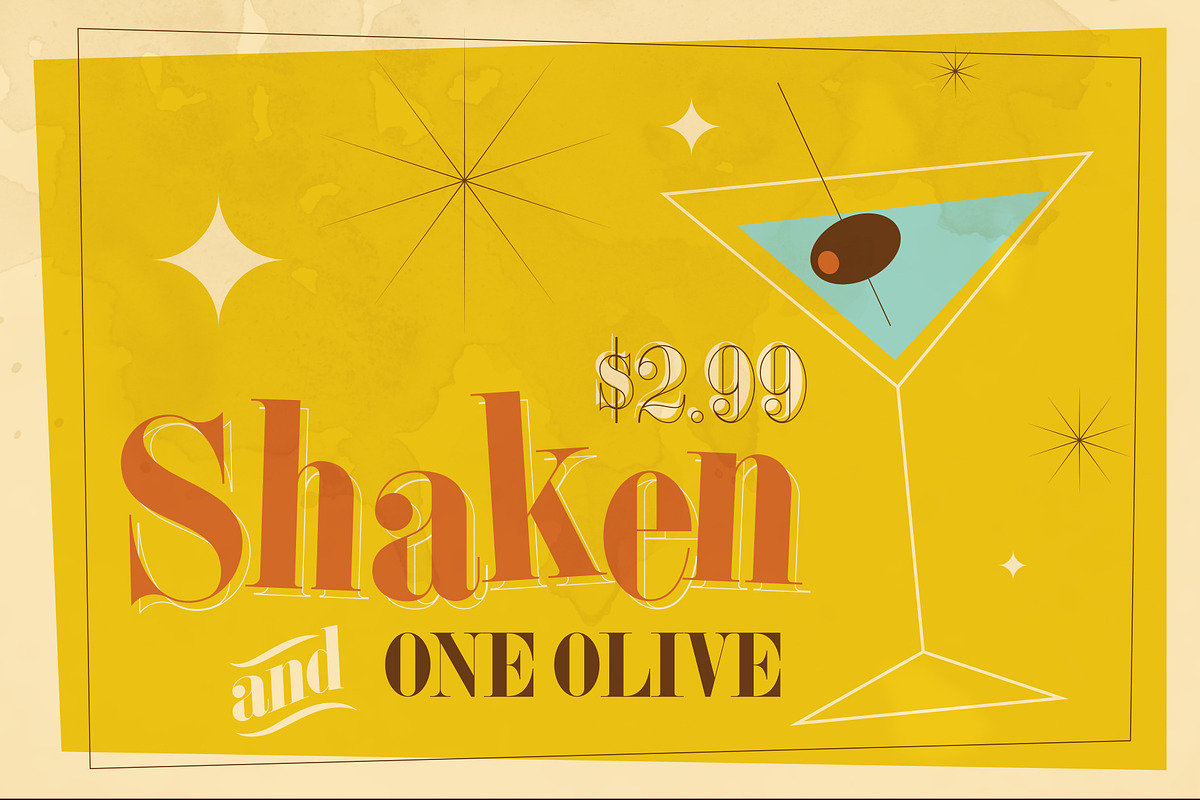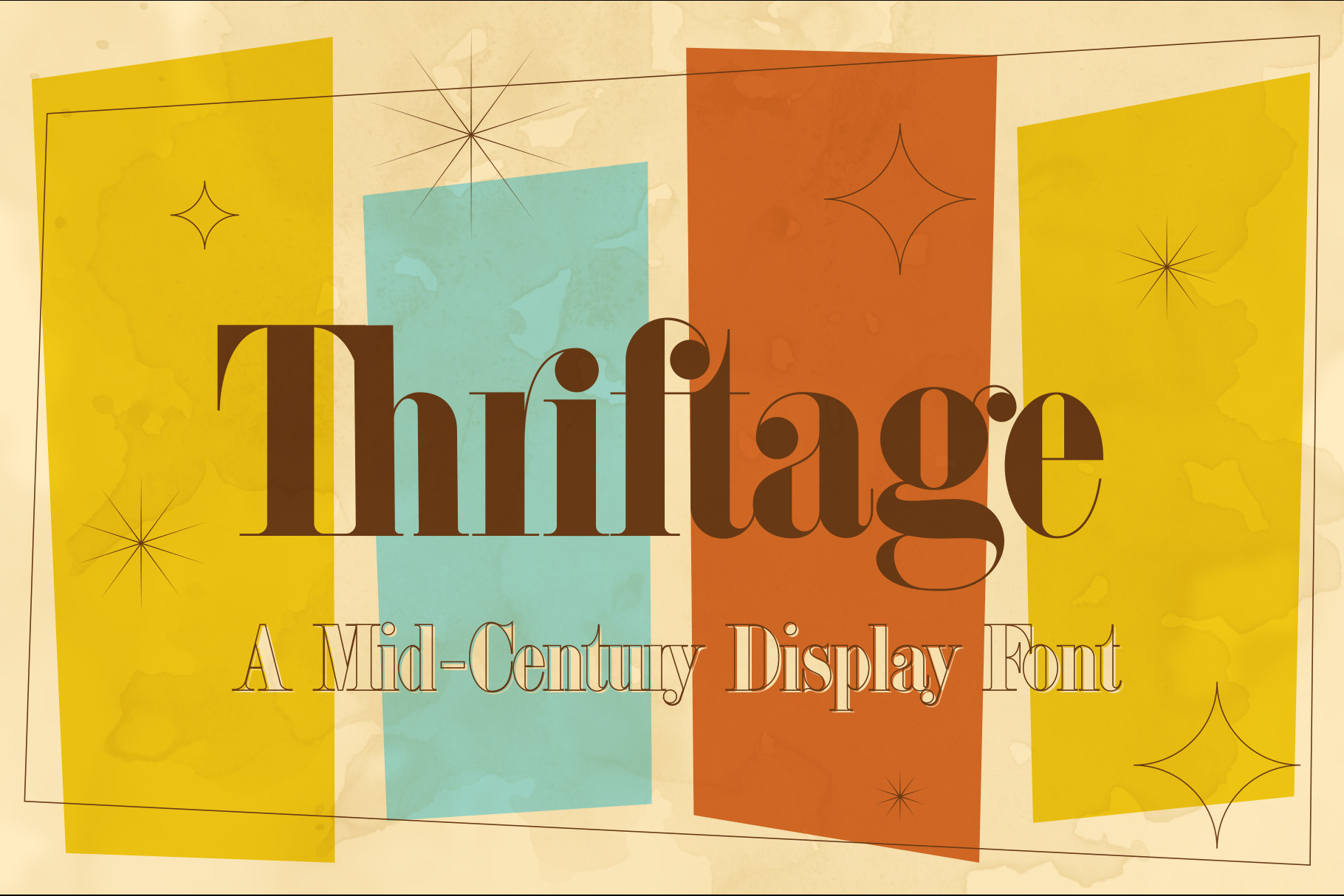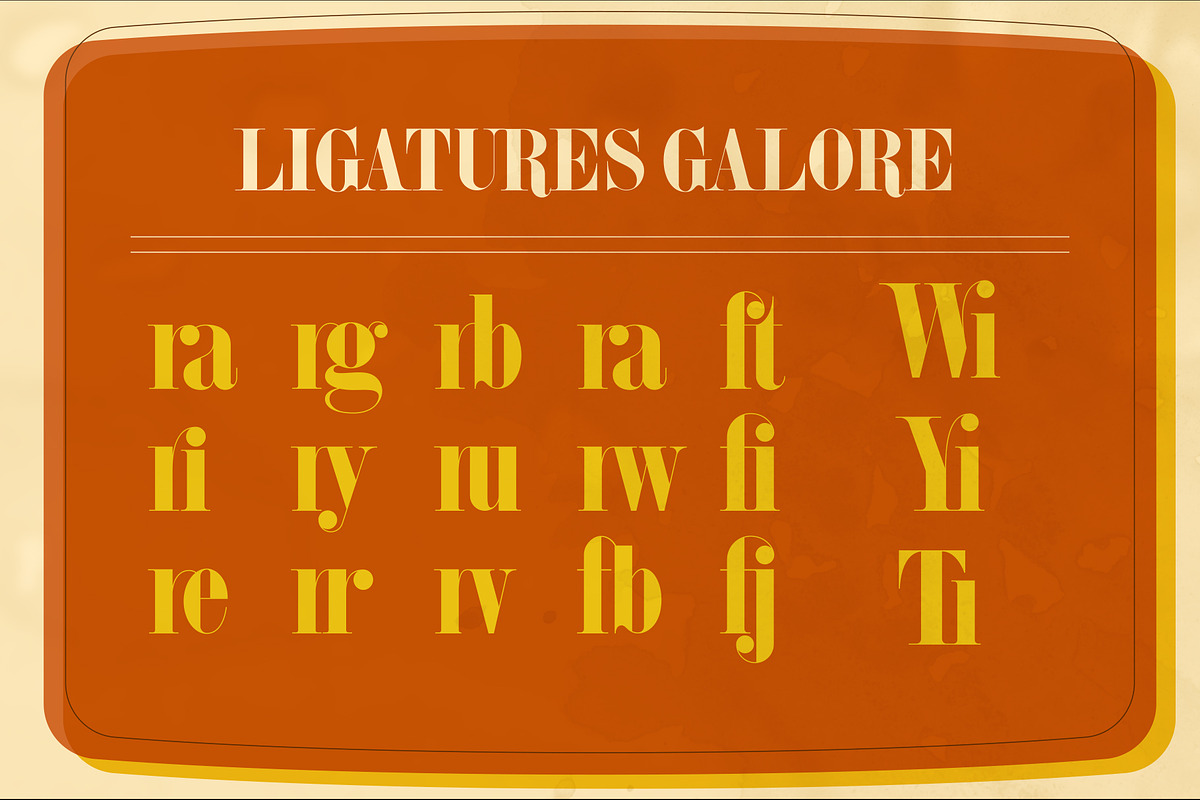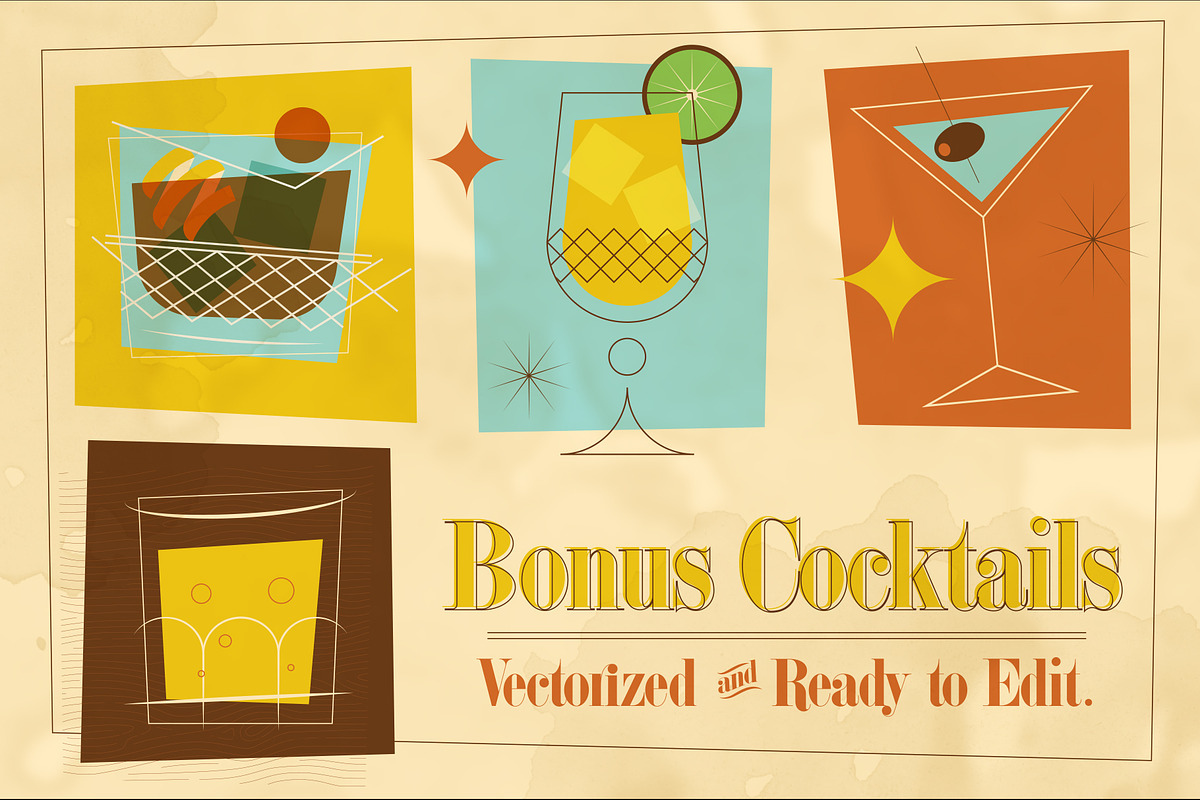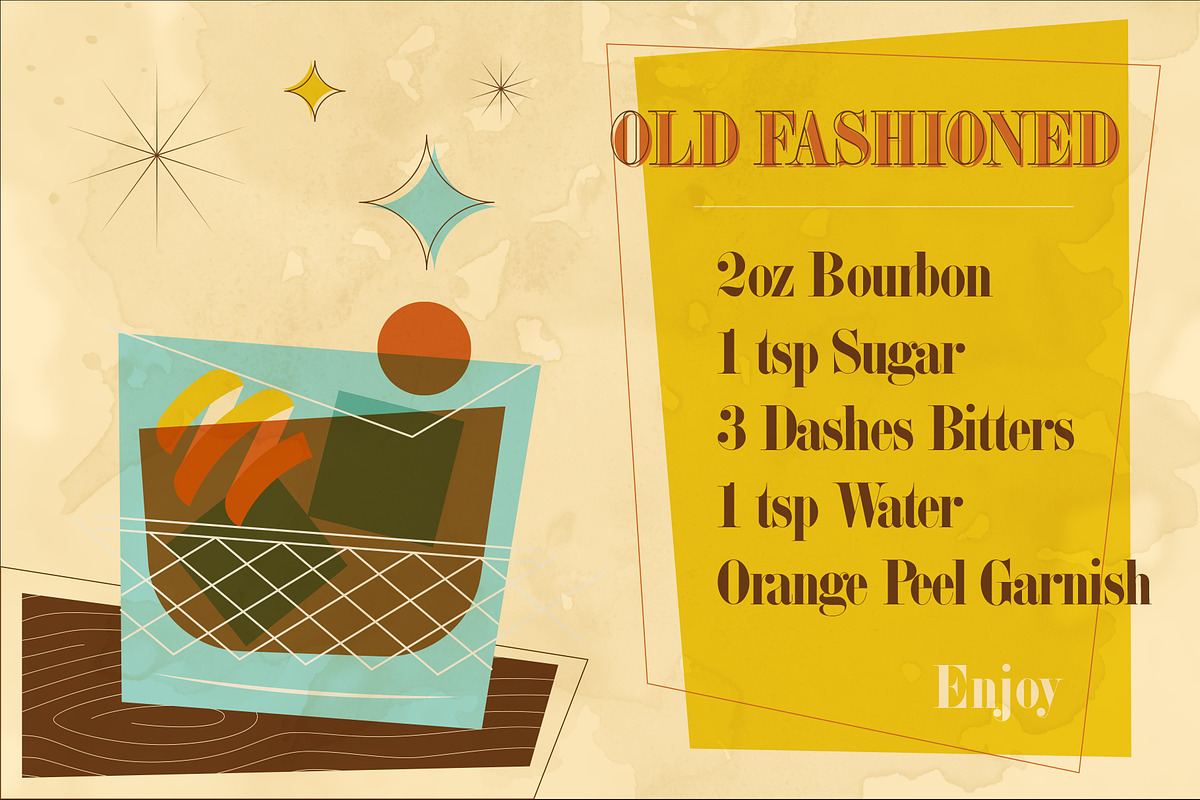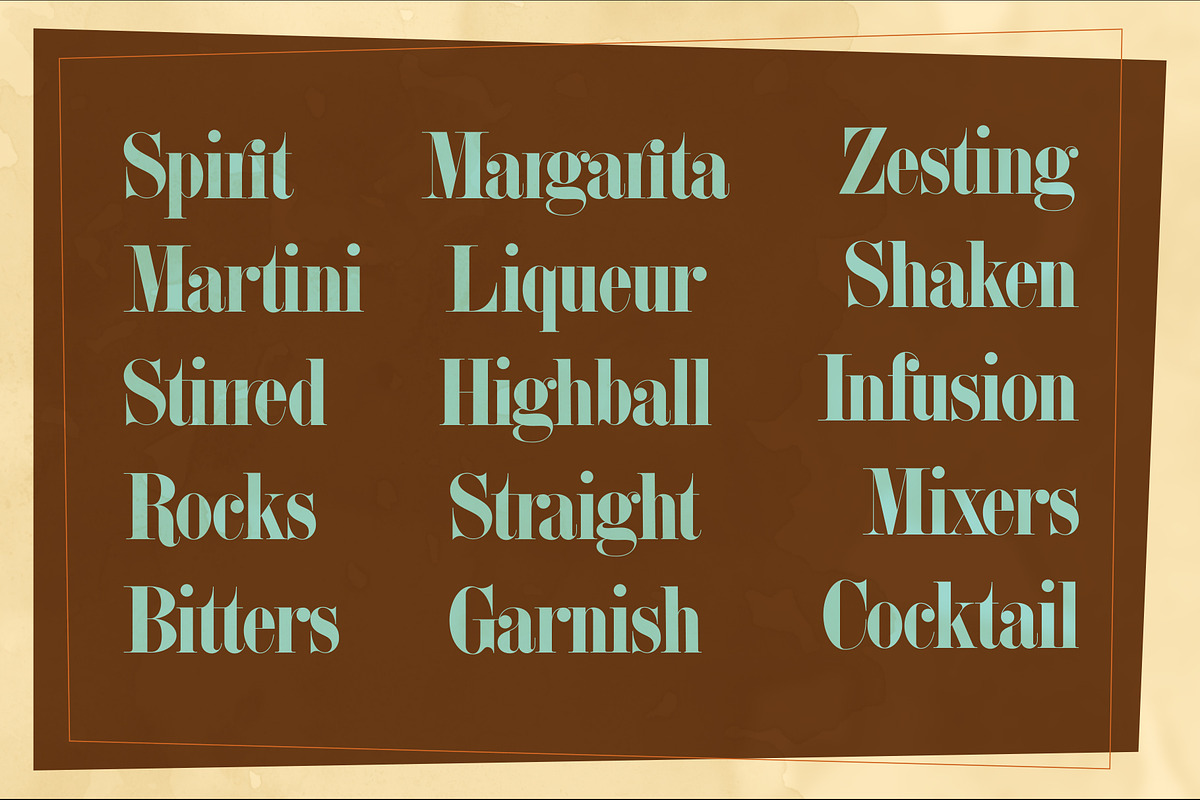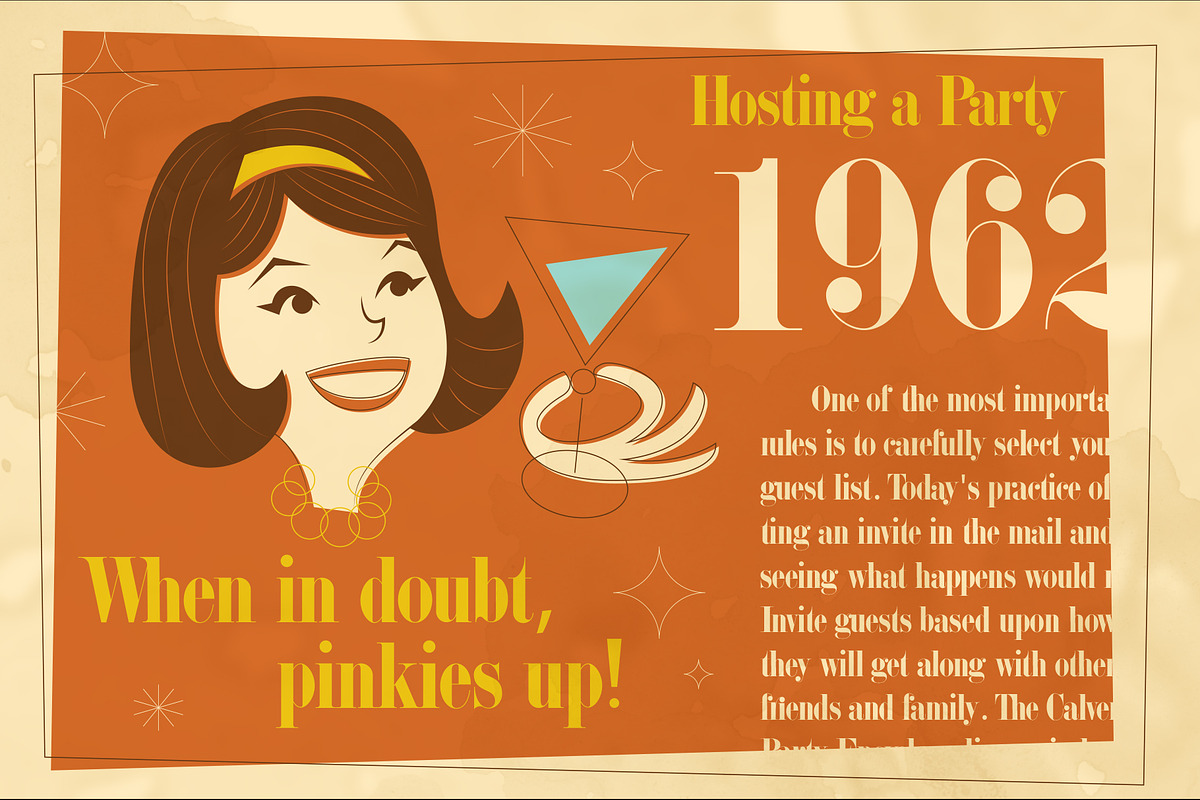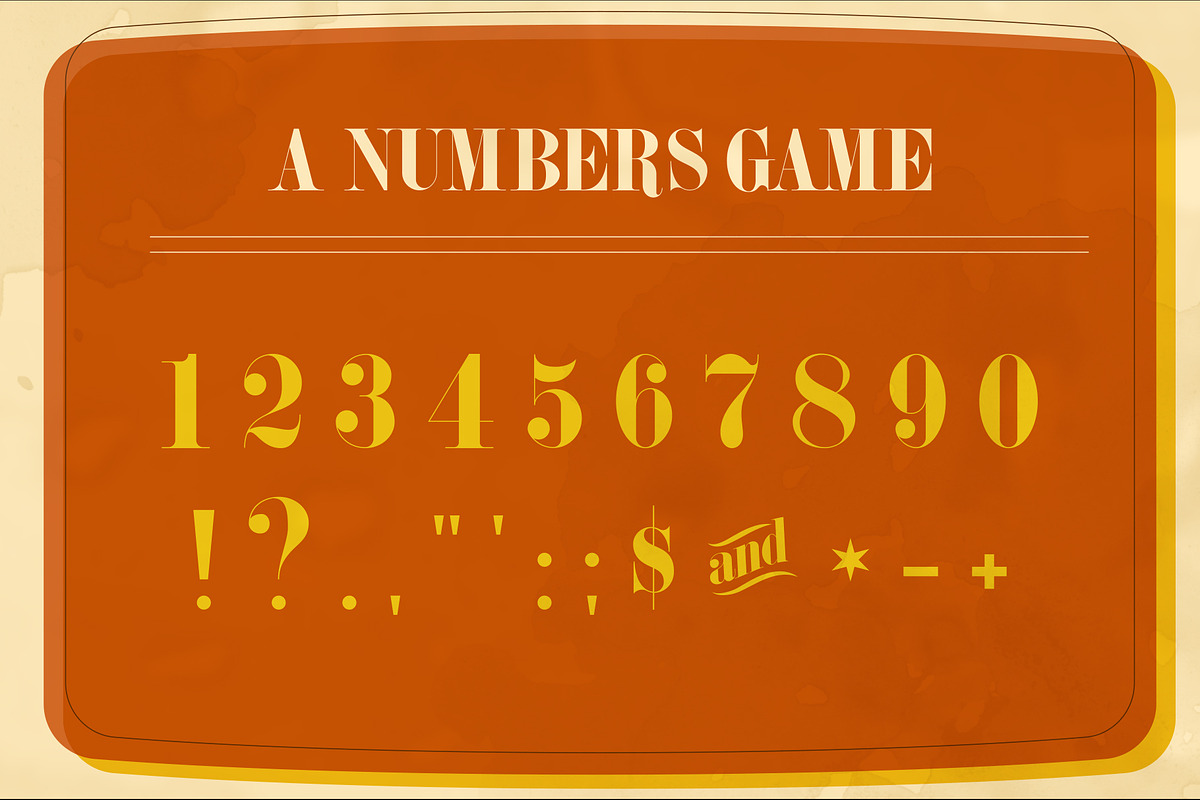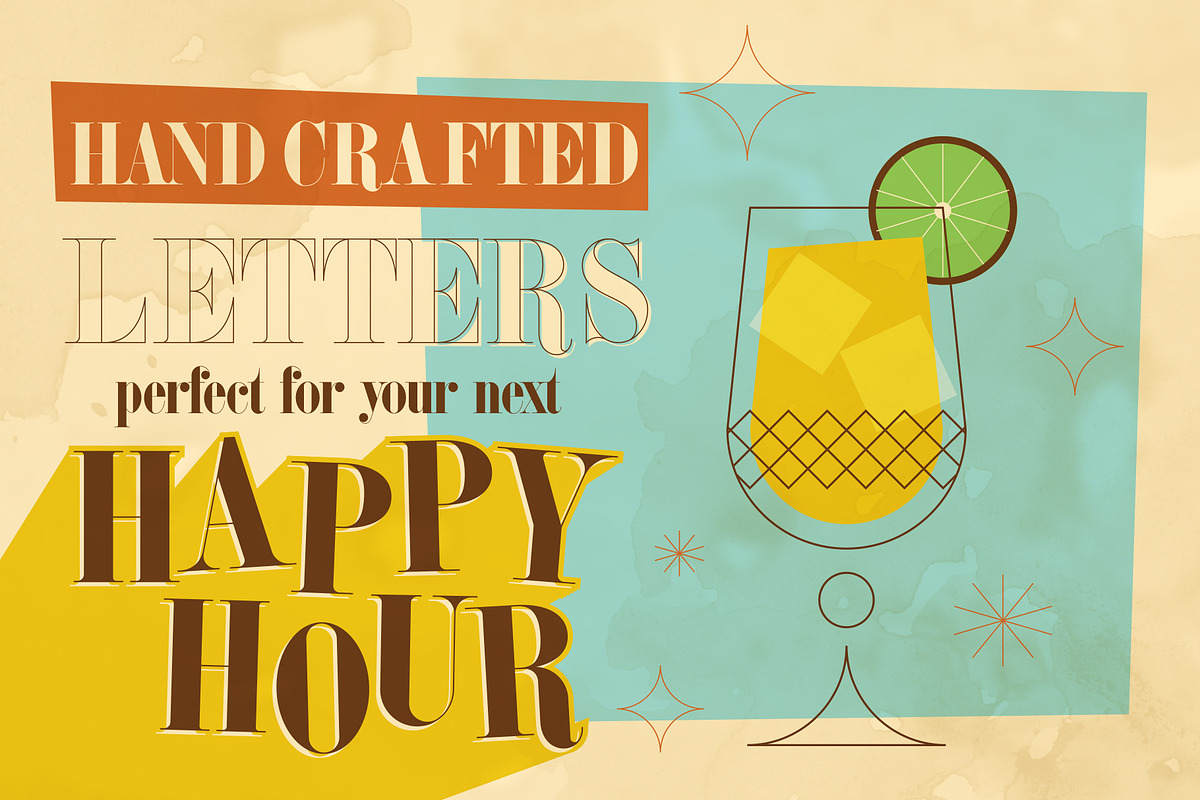
Thriftage Font + Extras
Bold, Stylish, and Memorable, Thriftage is a versatile font that embodies the atheistical demand of the early 1960's. An embrace of the Mad Men era, where elevation meets evolution. It's quirky personality and condensed structure gives it the ability to create prominent displays and titles through a myriad of expressions and alternatives.